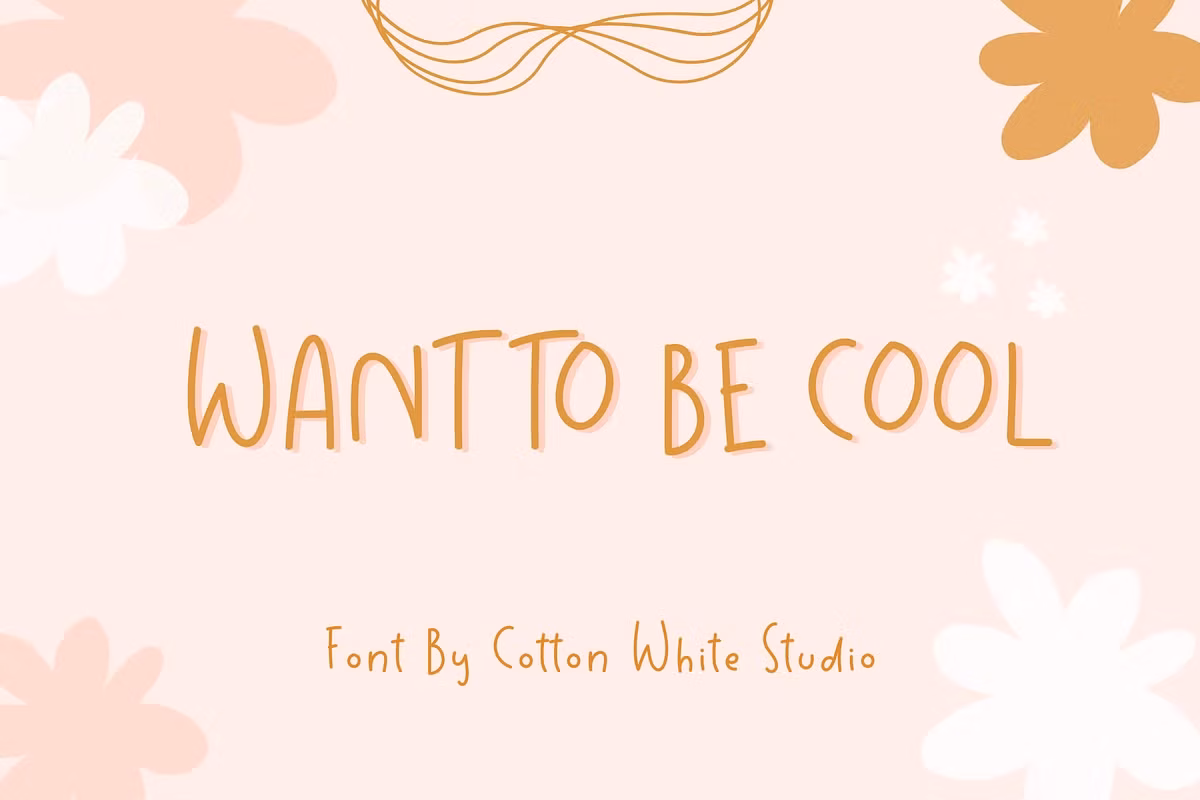
Want to be Cool Free Download
Want to be Cool Font Free Download is a trendy and expressive handwritten typeface that radiates confidence and creativity. With its casual, street-style lettering and bold attitude, Want to be Cool is perfect for urban branding, social media content, lifestyle merchandise, poster designs, and edgy marketing campaigns.
Designed to feel effortlessly stylish, Want to be Cool Font Free Download combines natural strokes with a modern aesthetic, giving your typography a youthful, rebellious vibe. Whether you’re designing for fashion, influencers, or creative promos, this font stands out with authenticity and flair.